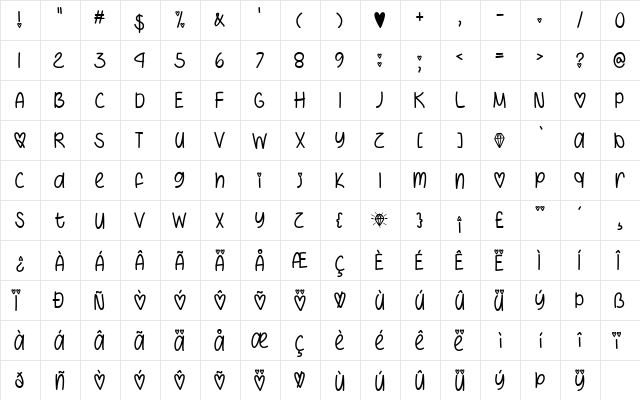
I Heart You Always Regular
| Foundry | Misti's Fonts |
| Designer | Misti's Fonts |
Design Context for I Heart You Always Typeface
I Heart You Always is a composed and adaptable typeface that performs quietly and consistently across a wide range of design contexts.